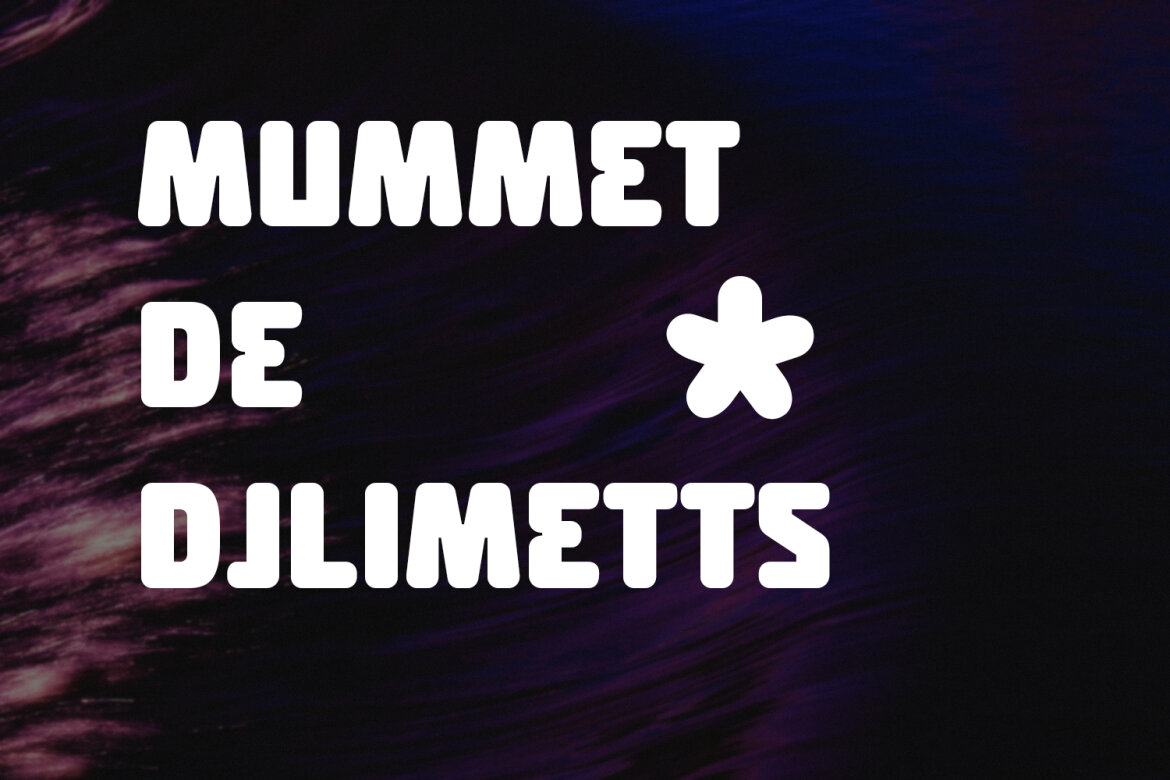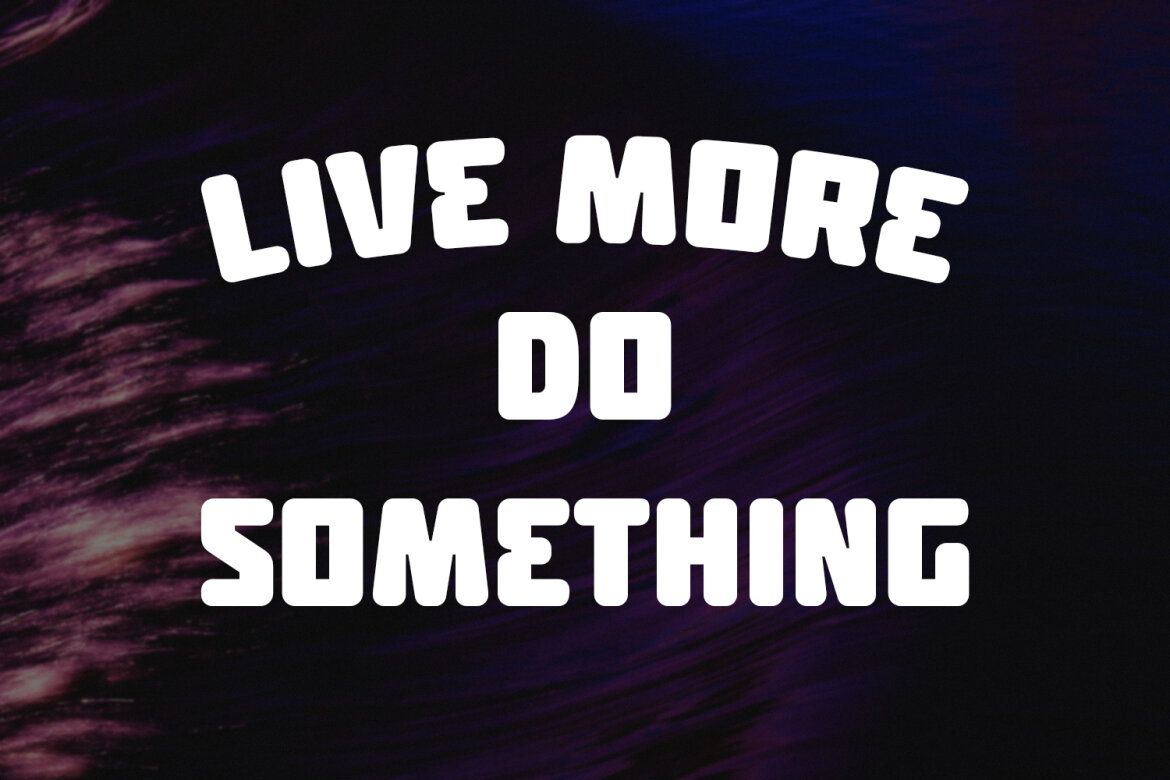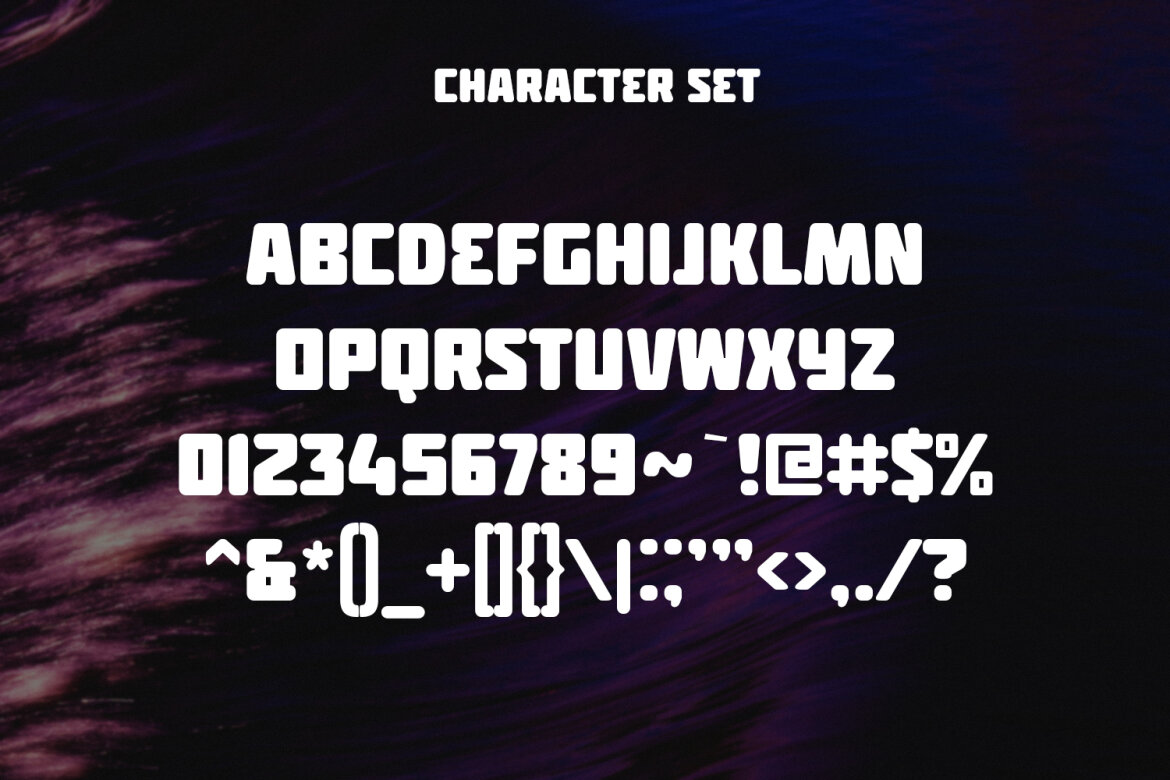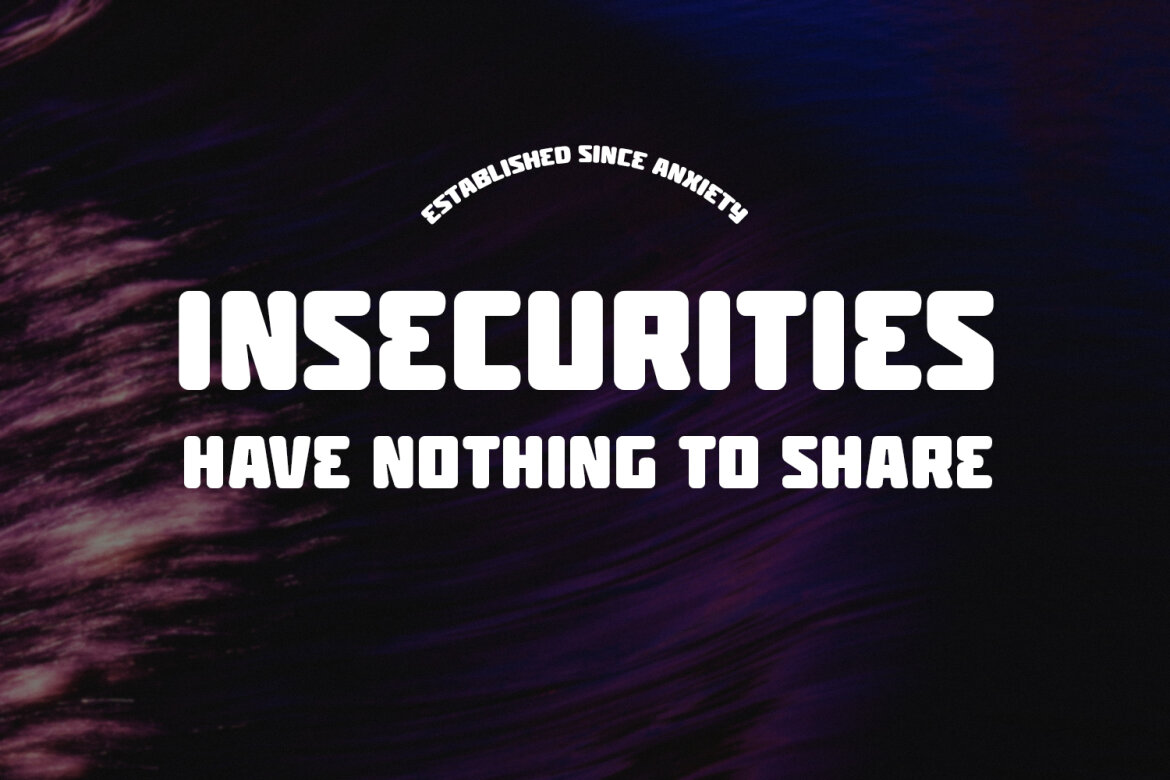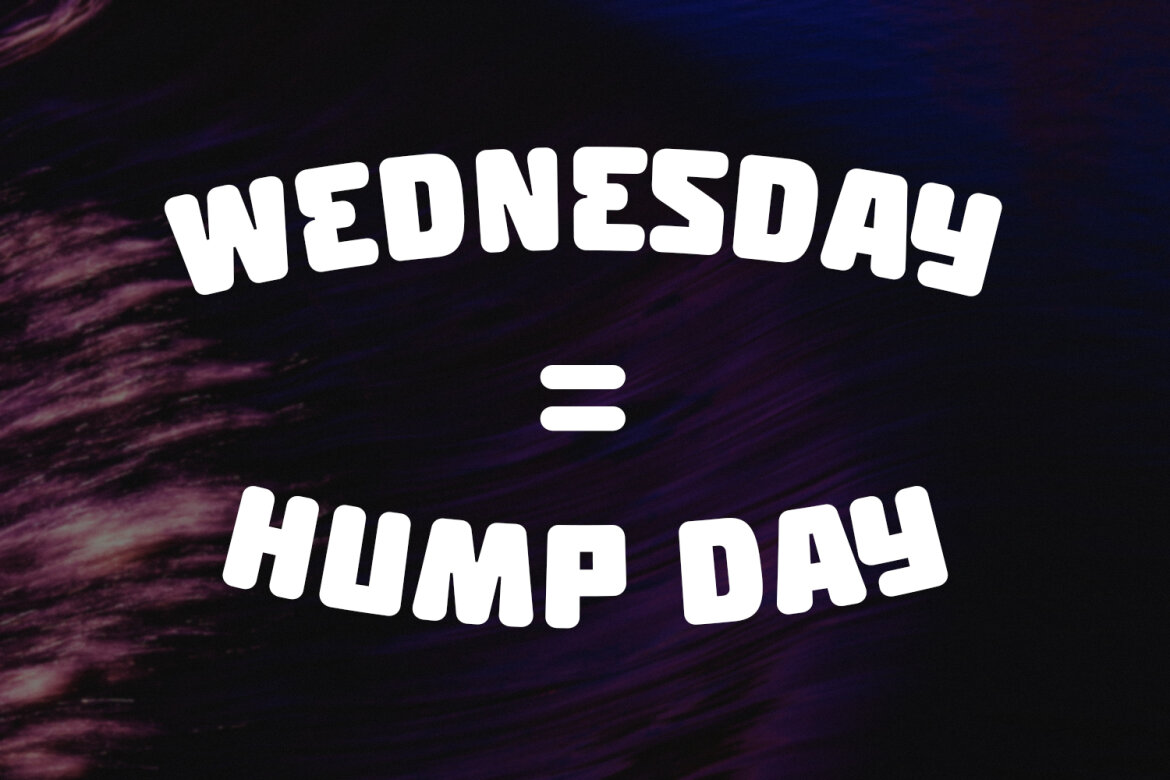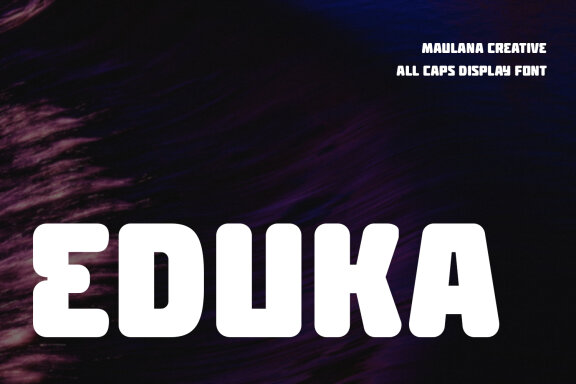
Eduka Display FREE Font
Eduka is a squarish sound sans serif Display font. Bold stroke, fun character with a bit of ligatures and alternates. To give you an extra creative work. Eduka font support multilingual more than 100+ language. This font is good for logo design, Social media, Movie Titles, Books Titles, a short text even a long text letter and good for your secondary text font with script or serif. Make a stunning work with Eduka font.